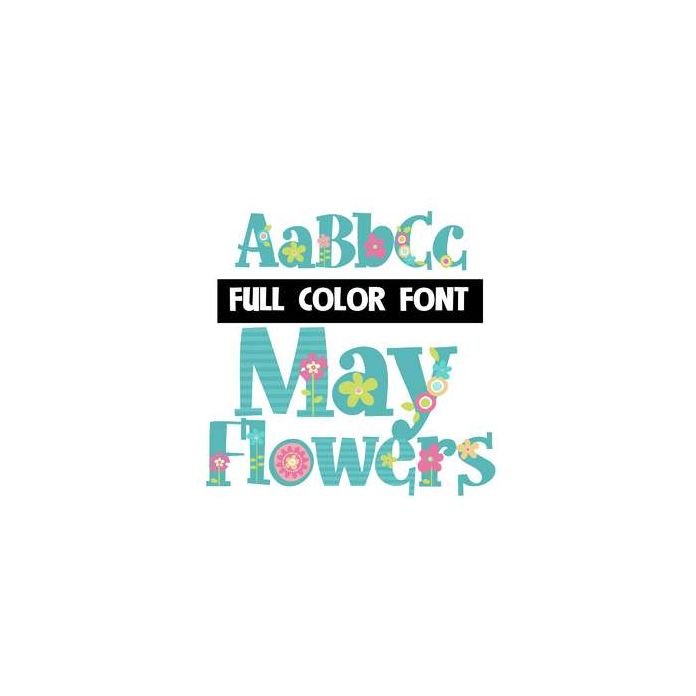
This full-color font features colorful flowers on letters. This font works best for titles, displays, posters and more. Please note color fonts will show as black in non compatible programs. This font type is compatible with Silhouette Studio.